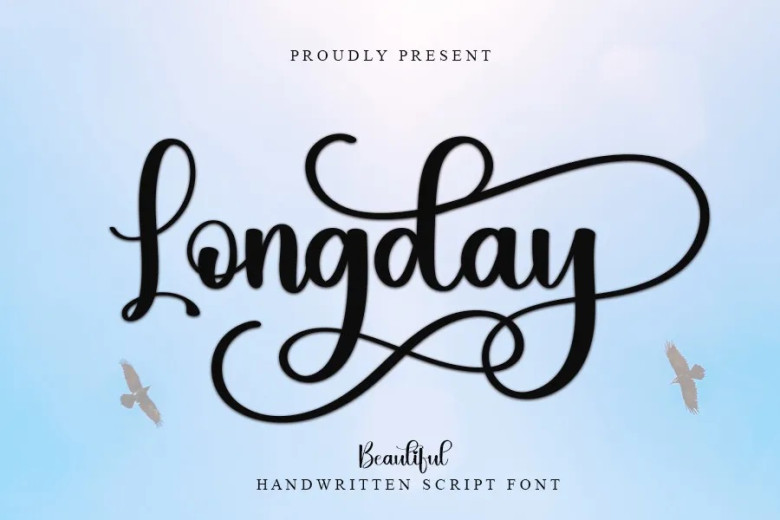
Longday Font
Longday is a gorgeous script calligraphy font, perfect for all your creative needs. You can use it for making logos, business cards, magazine covers, titles, quotes, books, social media posts, fashion and more.
Longday Calligraphy Script Font